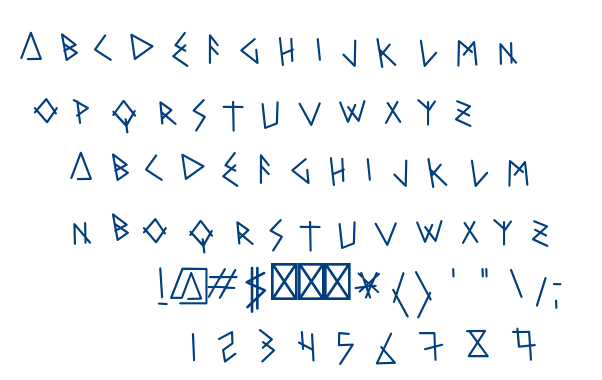
Tiny Small Medium Large Ritual font Marc Camps Website RITUALregular-Regular.otf Download 2553 downloads Free for personal use Category: Basic » Sans serif Ritual is experimental, it is a personal project. Looks like a archaic / runic alphabet Character Map specimen sheet